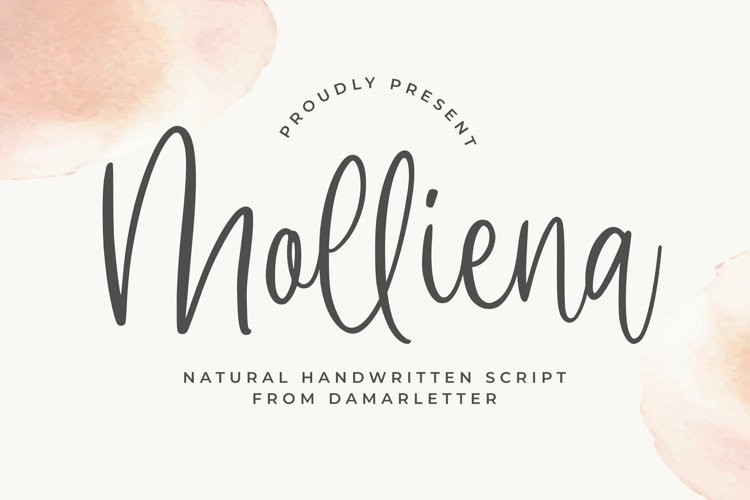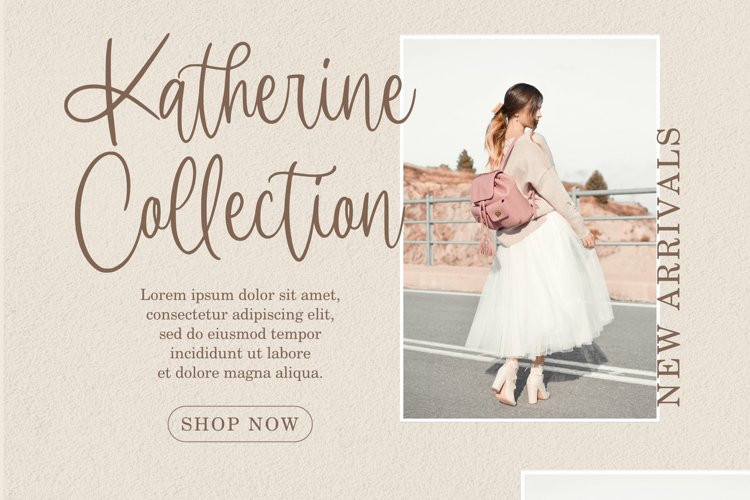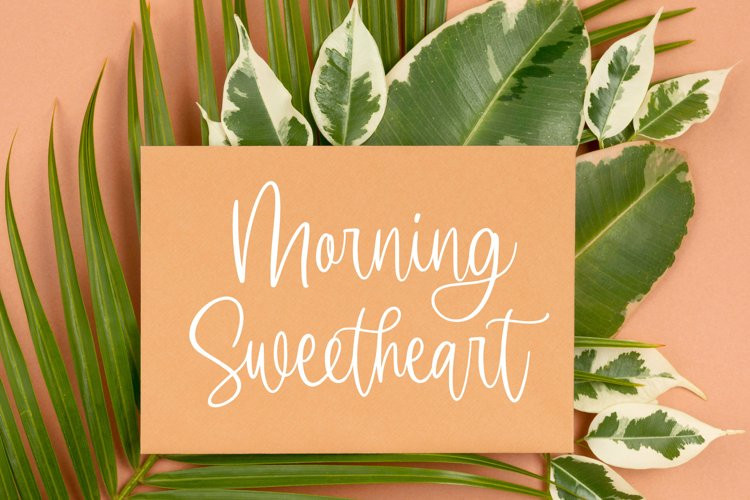
Molliena Font
Molliena is an enchanting handwritten font. This versatile script font has a wide spectrum of applications ranging from greeting cards to headlines and is guaranteed to add a romantic feel to your next project.